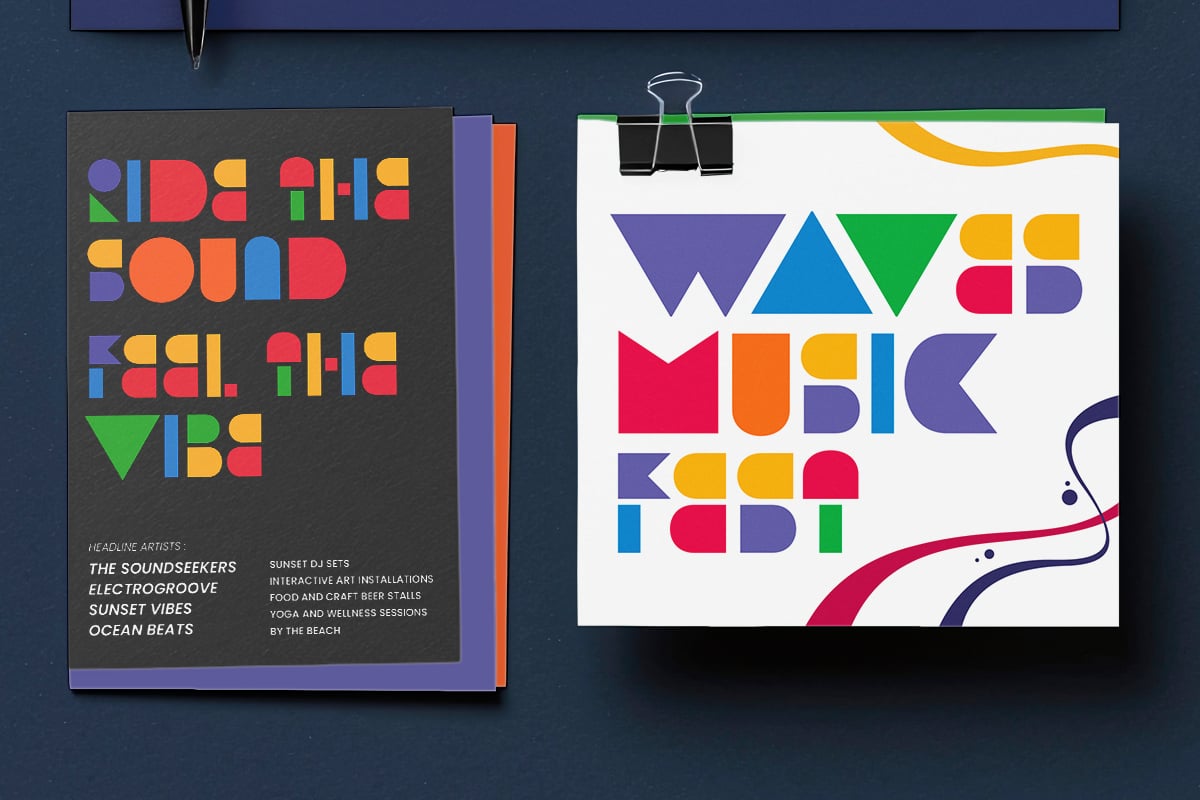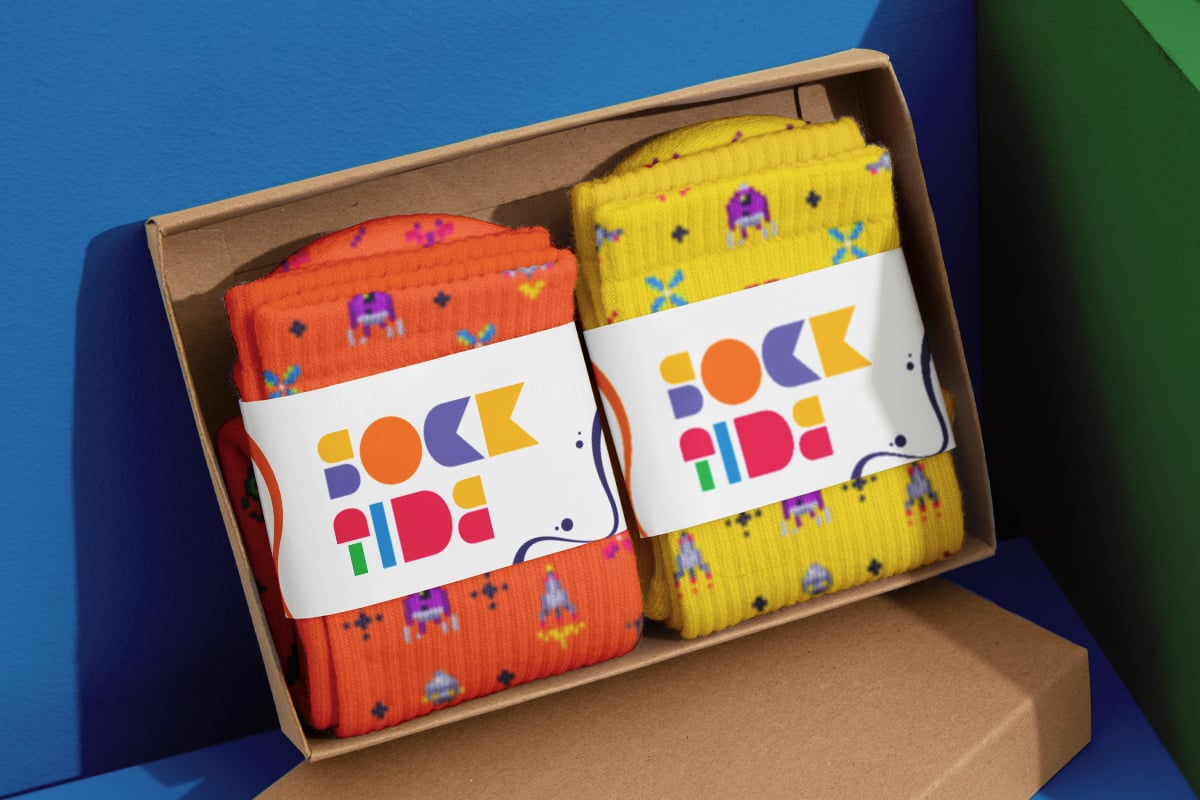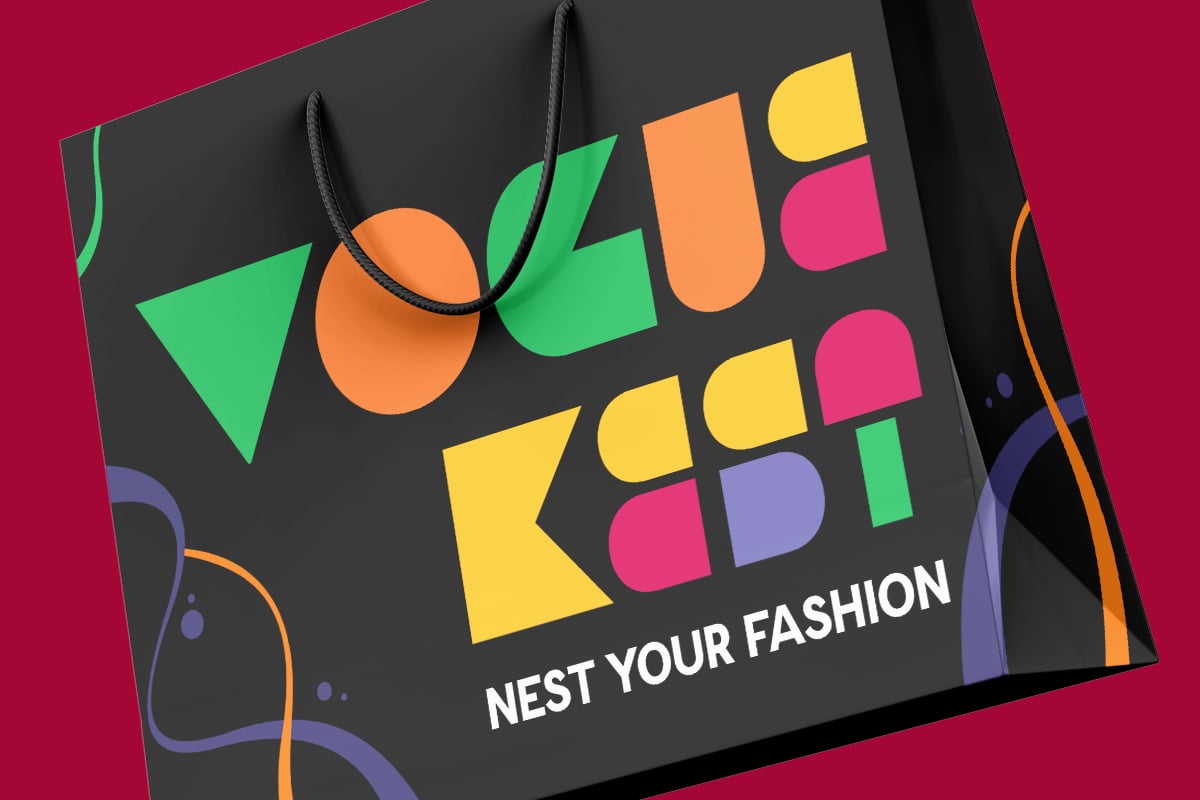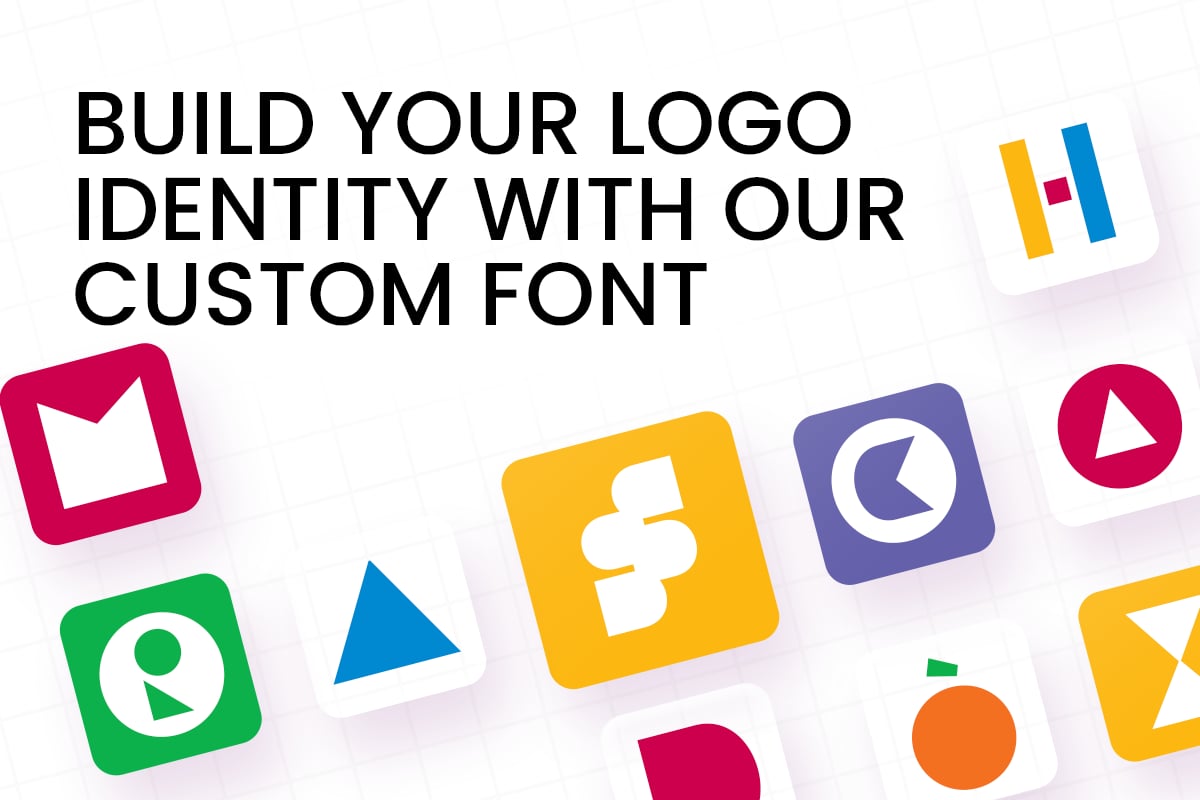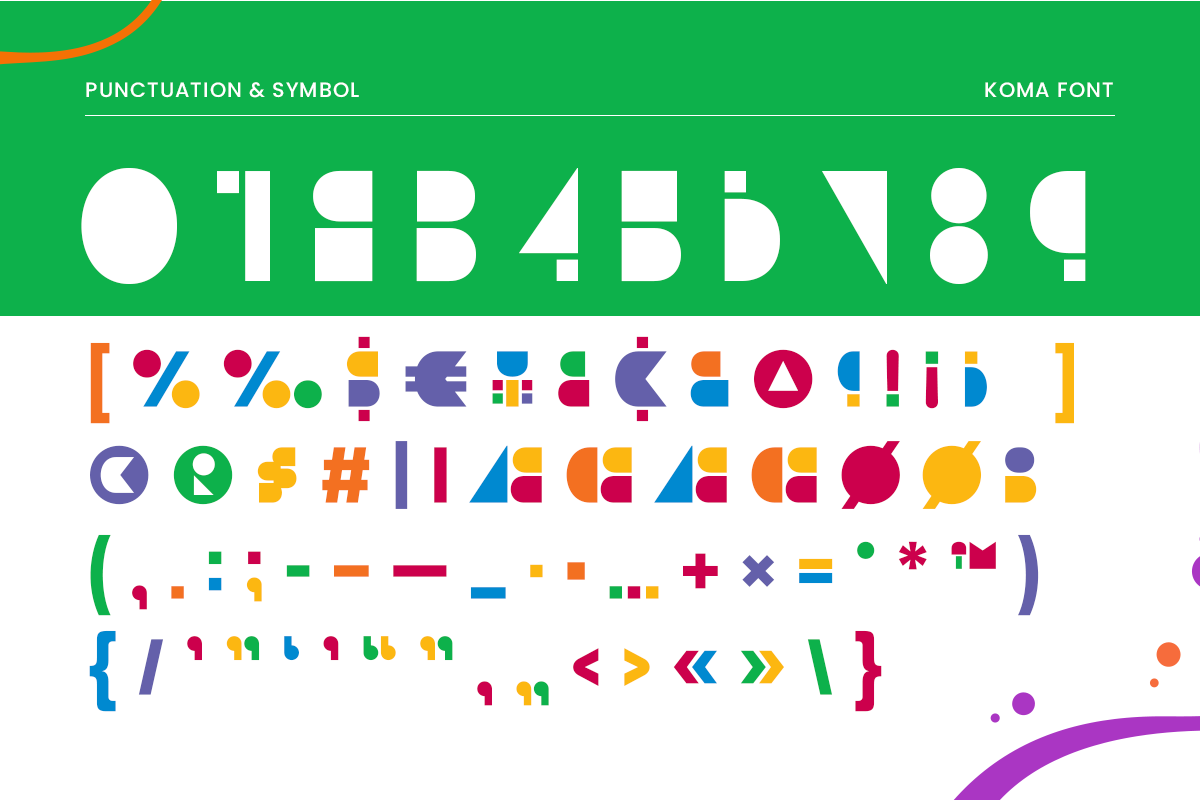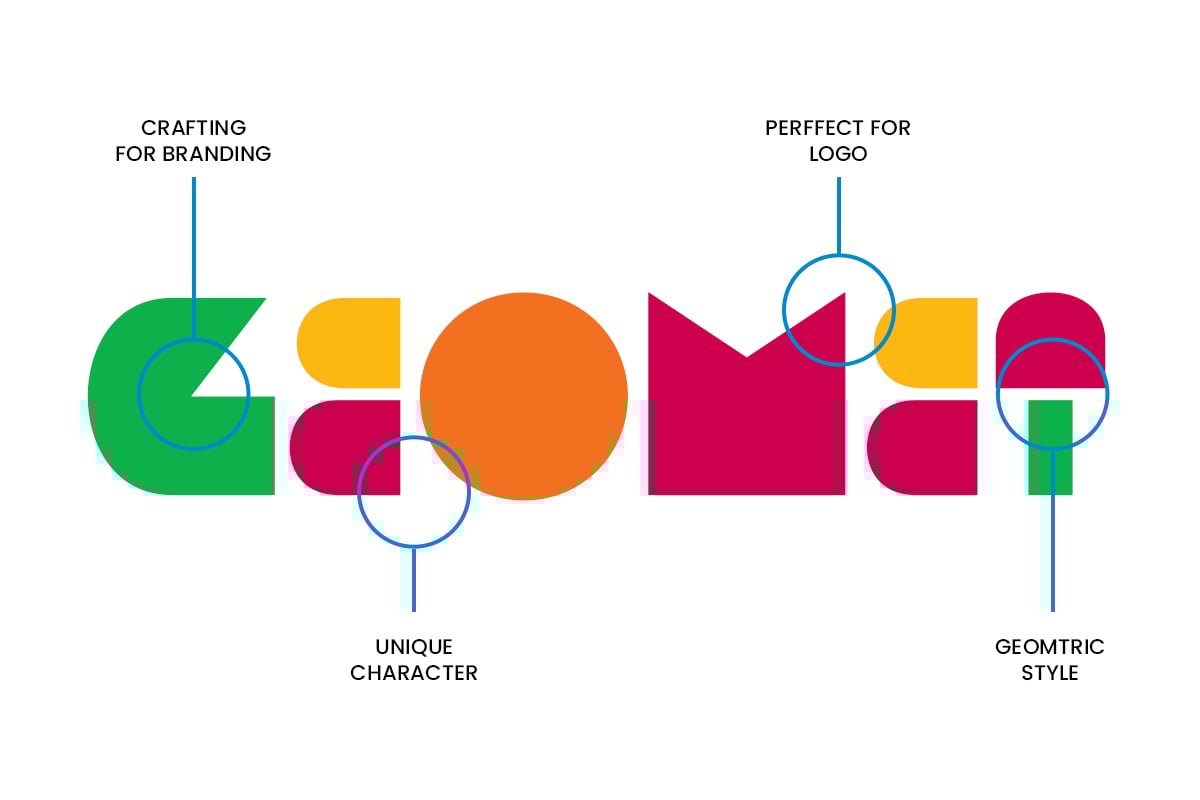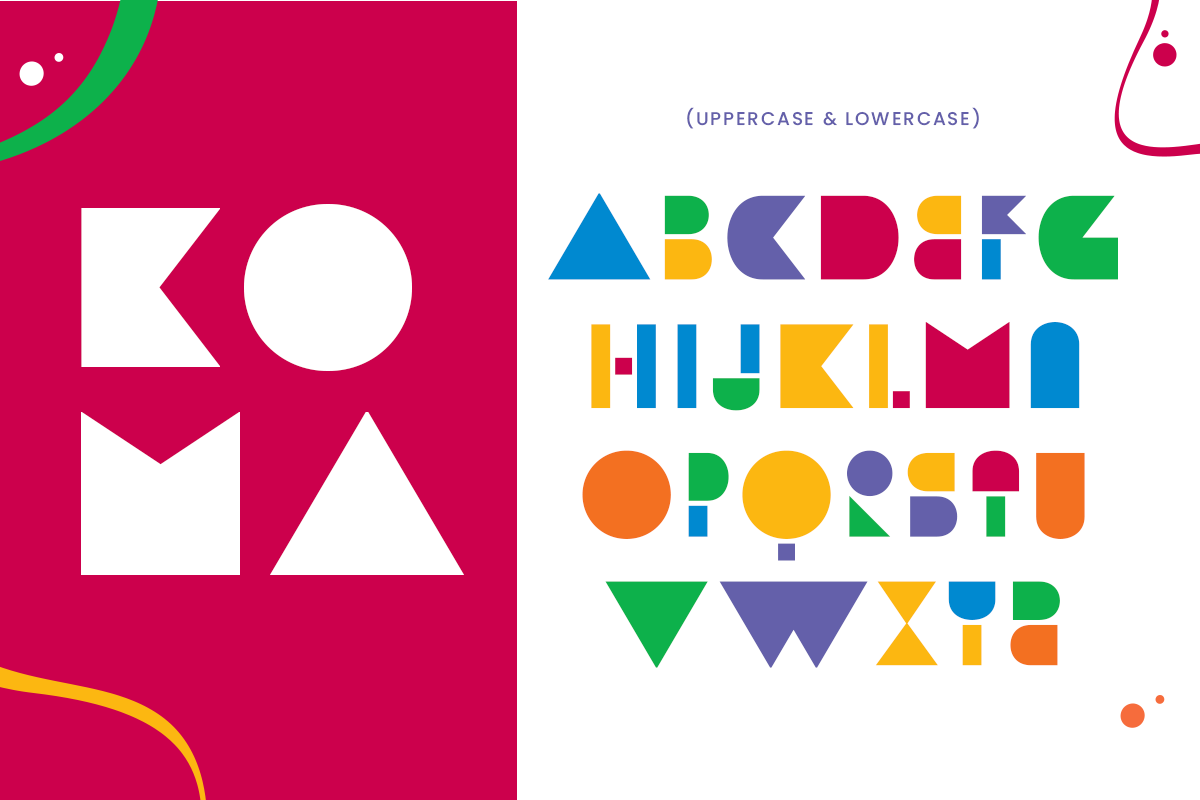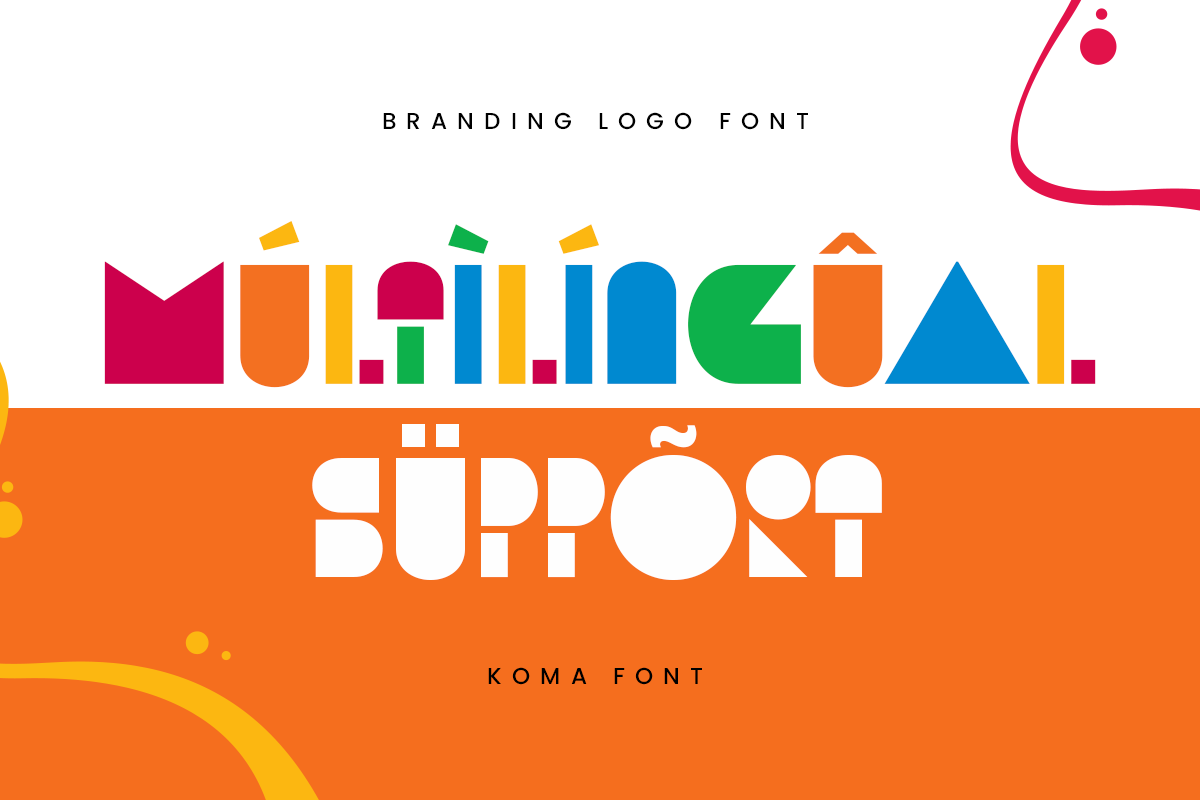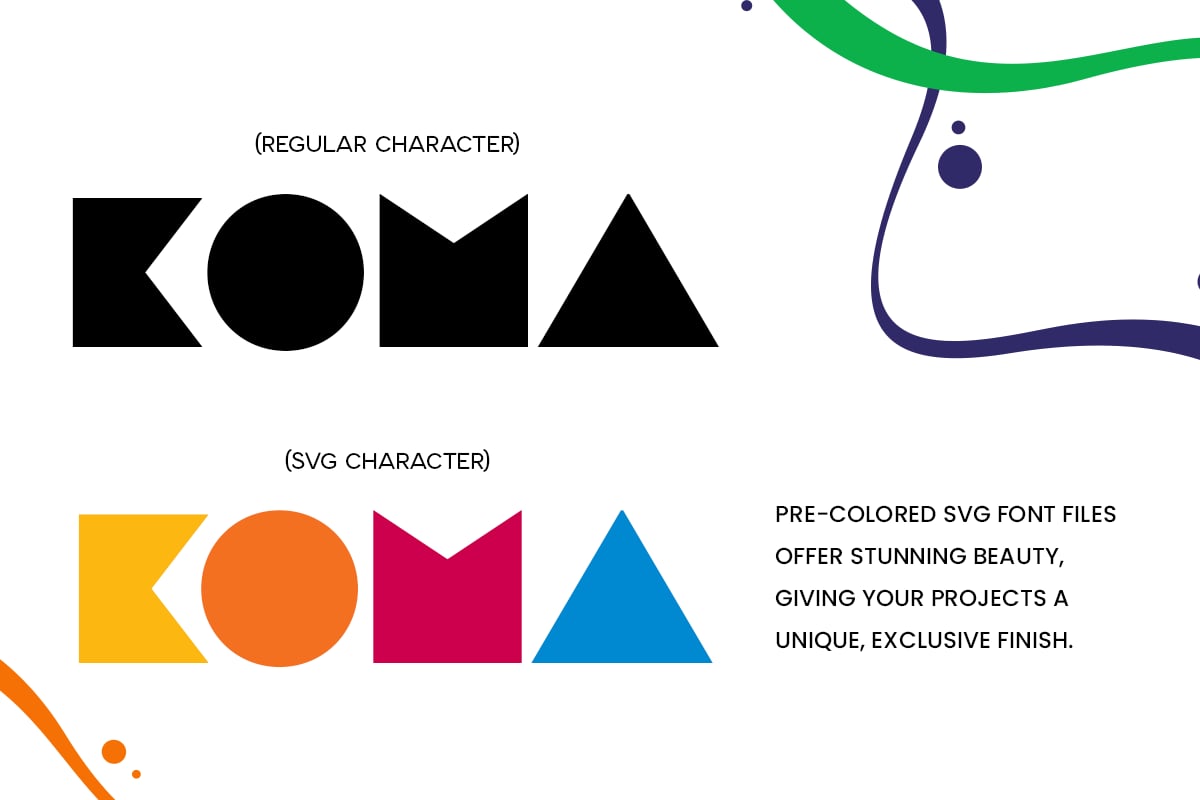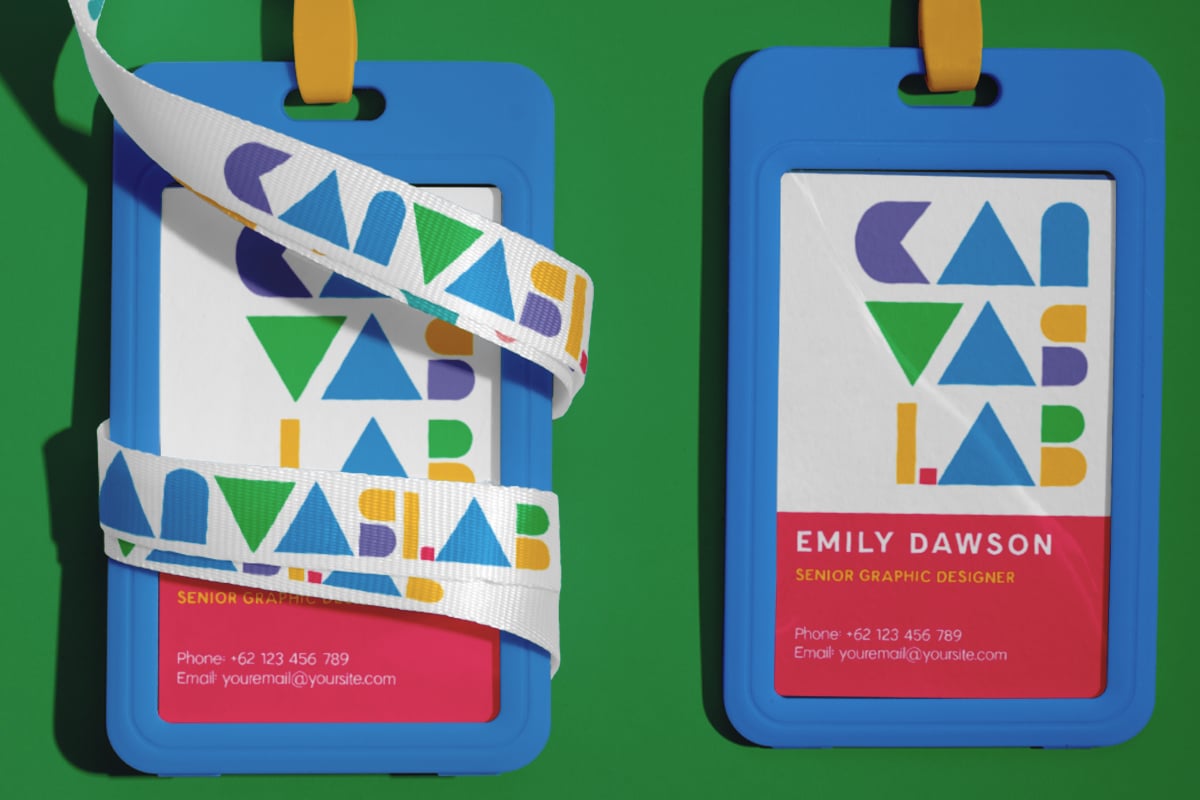
KOMA – SVG Branding Logo Font
KOMA is a bold branding logo font that combines modern design with versatility, perfect for creating striking visual identities. Its clean lines and strong letterforms make it ideal for logos, branding, packaging, and any project that demands a professional and memorable presence. Whether you’re working on a corporate identity or a creative startup, KOMA provides the perfect balance between boldness and clarity.
Inspired by contemporary typography, KOMA stands out with its distinctive design while remaining highly legible and functional across various mediums. The font’s modern feel makes it ideal for digital applications, print media, and everything in between, offering a polished and cohesive look for your brand.
With KOMA, you can confidently craft unique logos and branding elements that leave a lasting impression, making your designs both impactful and versatile.
- Unique Logo Characters Ready